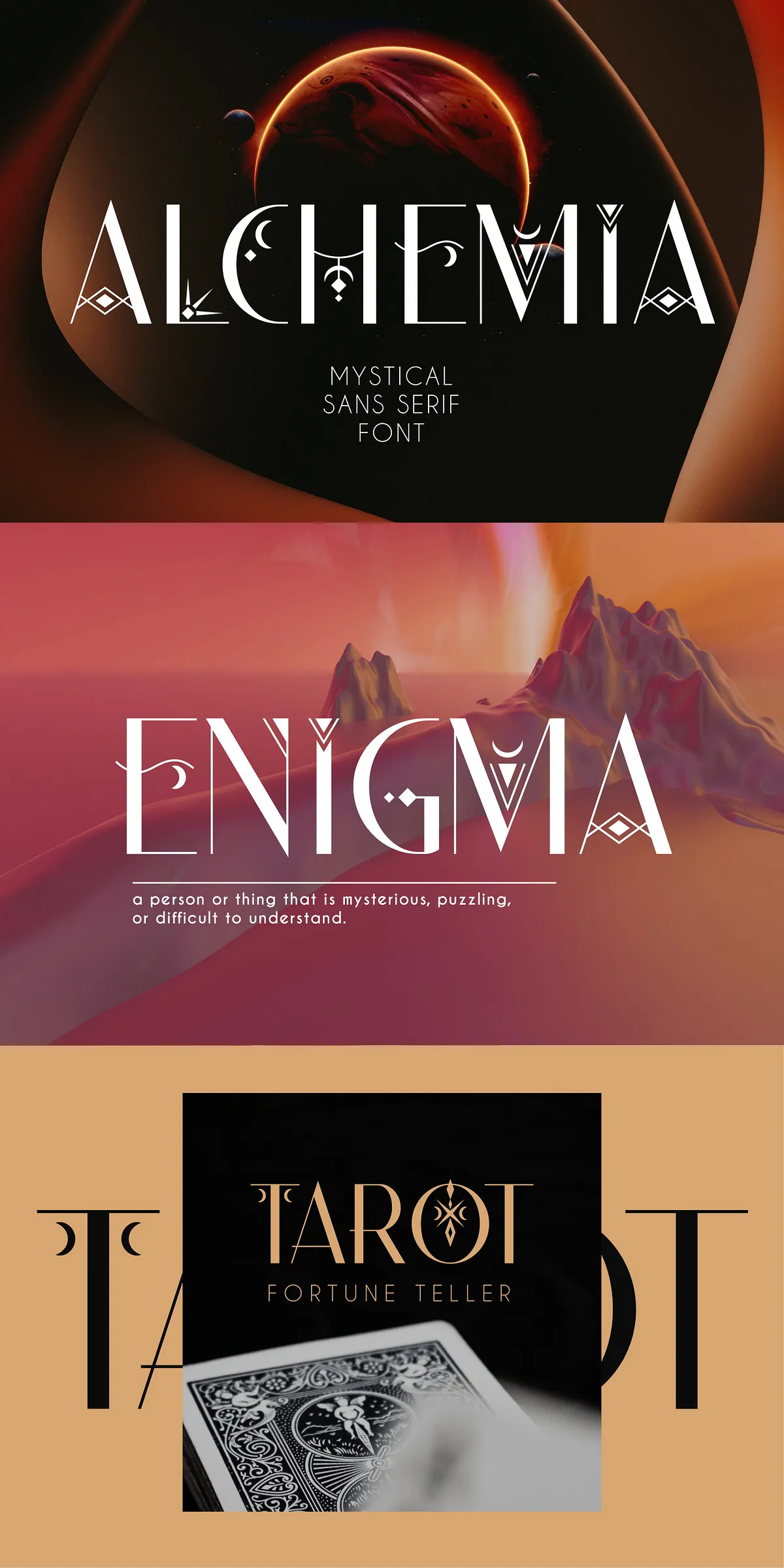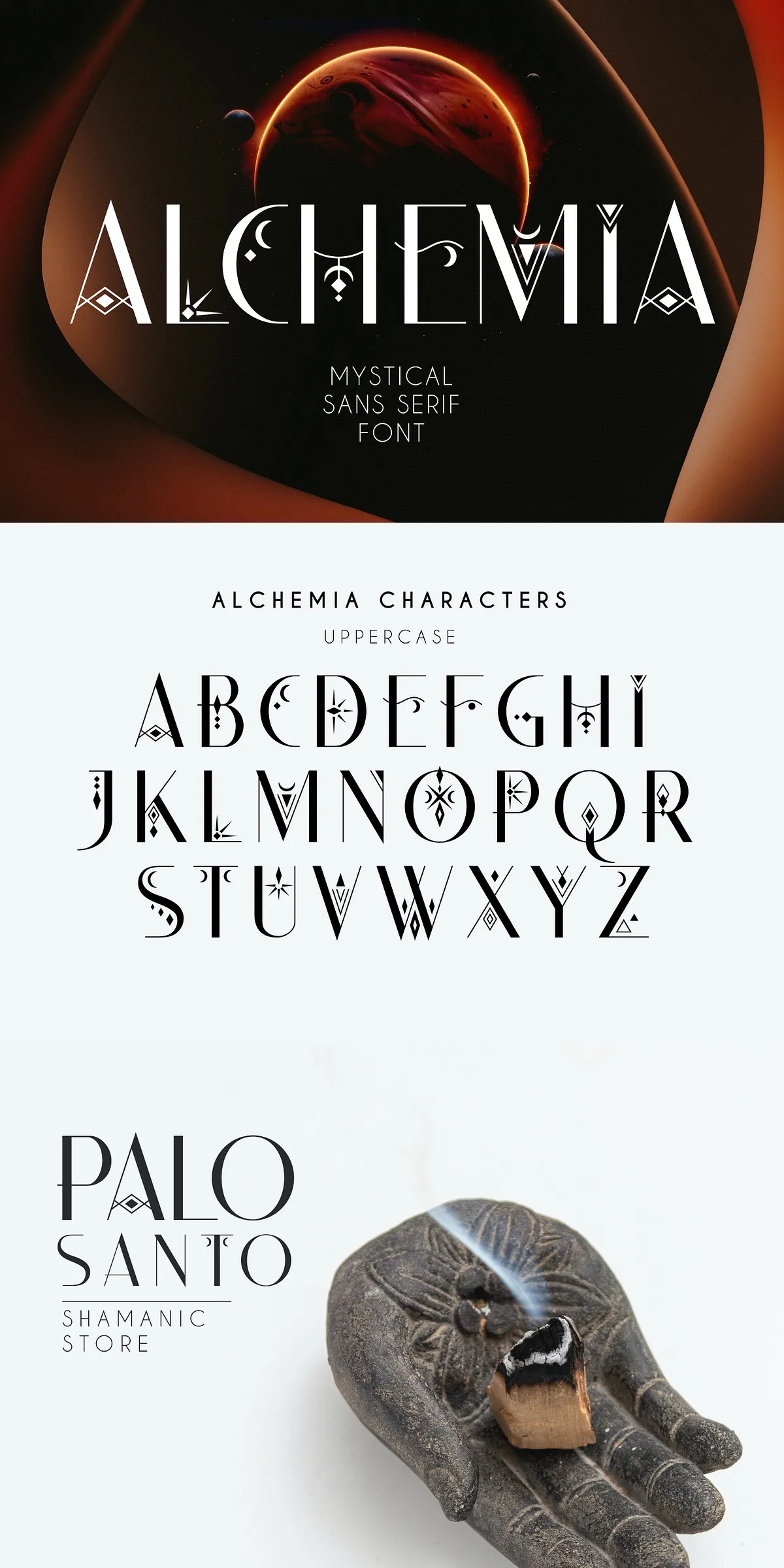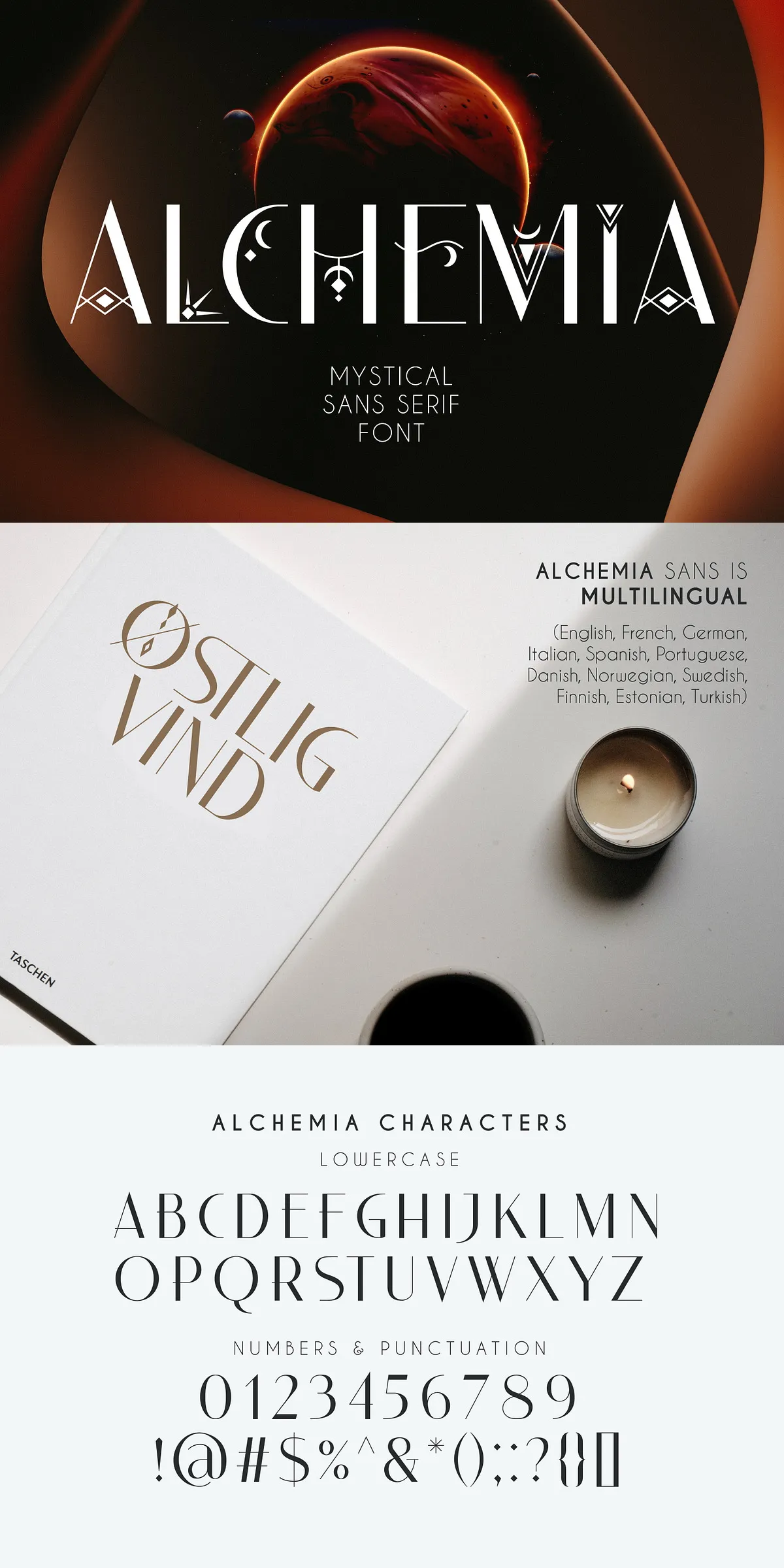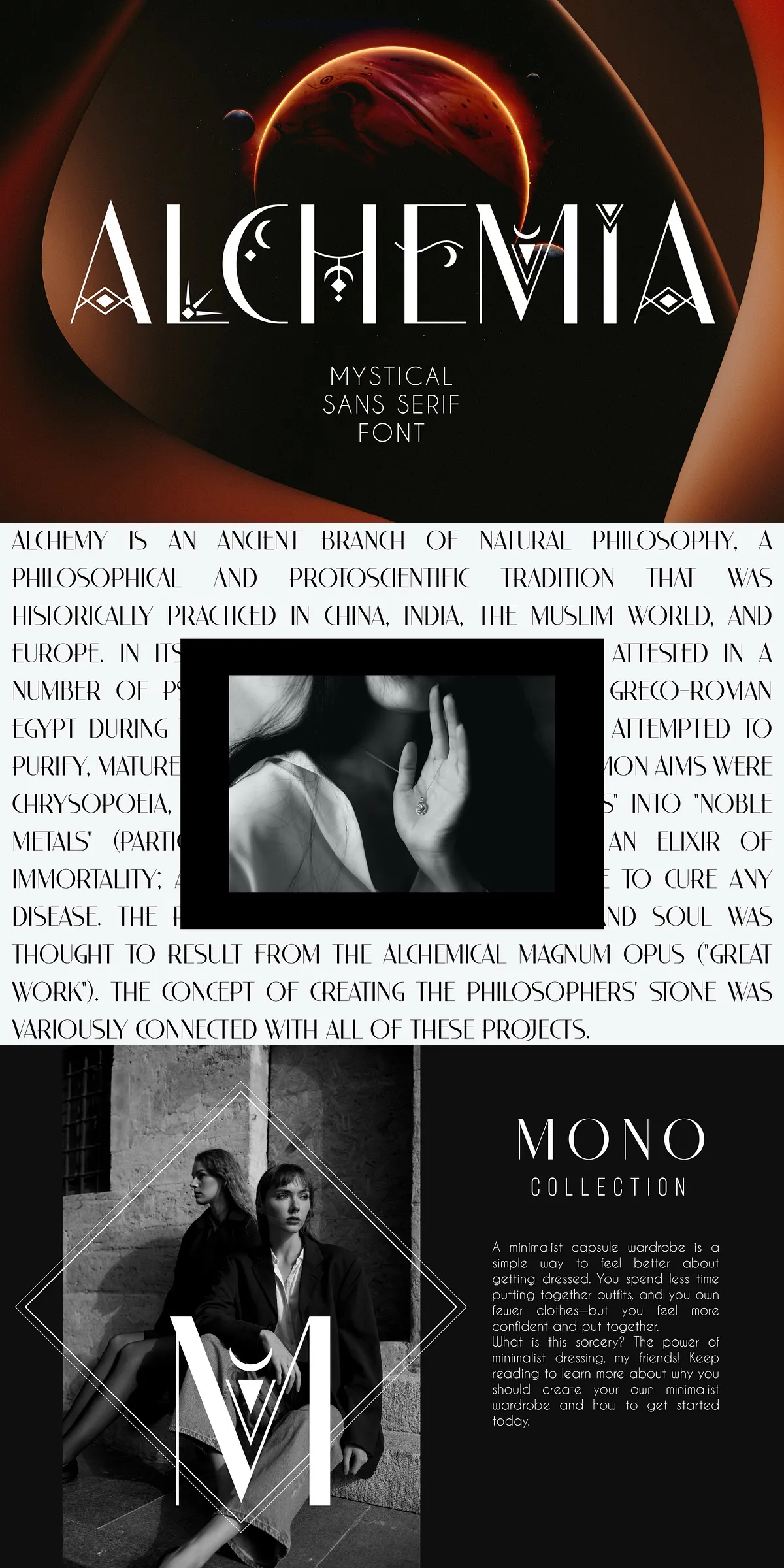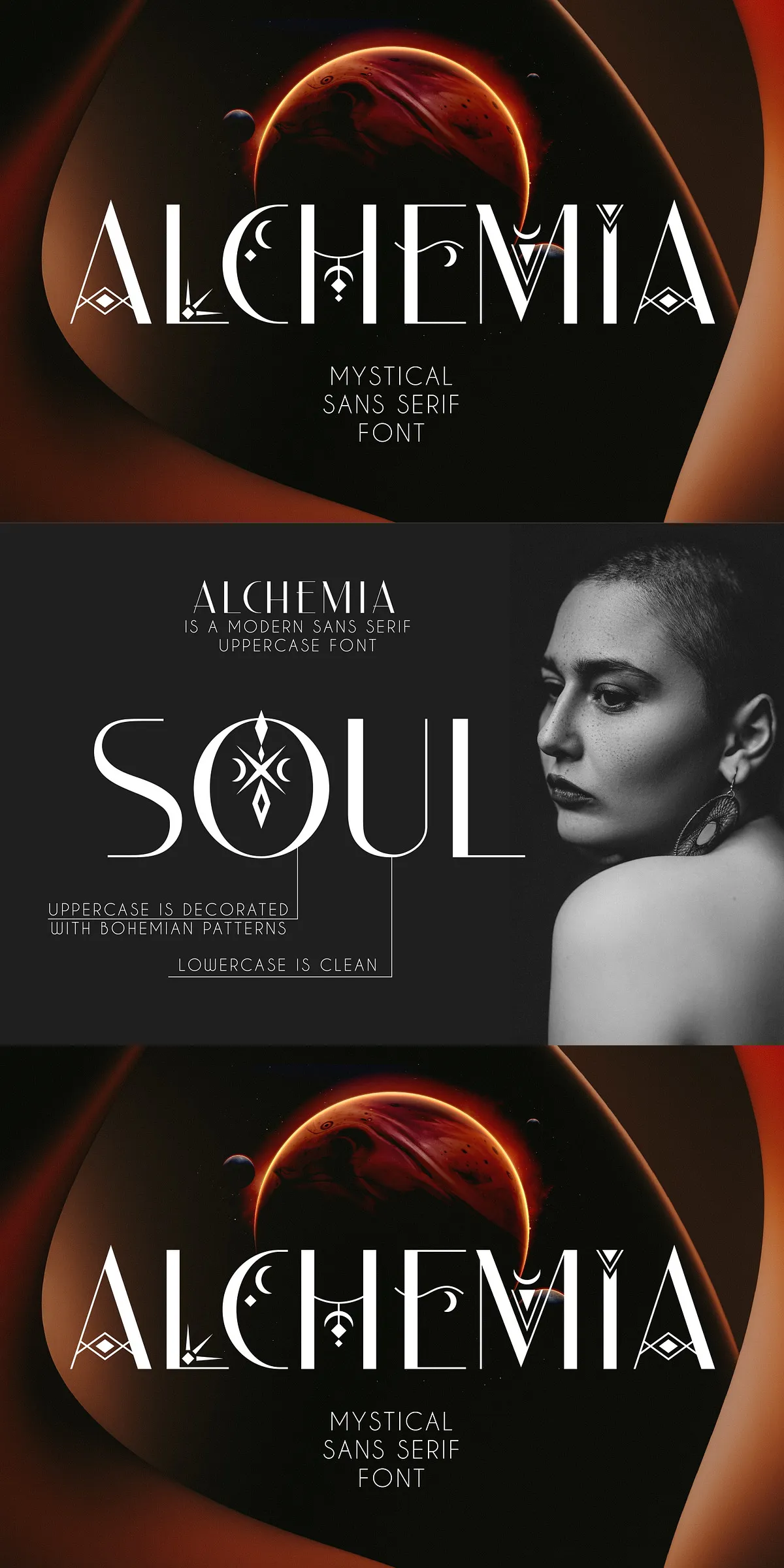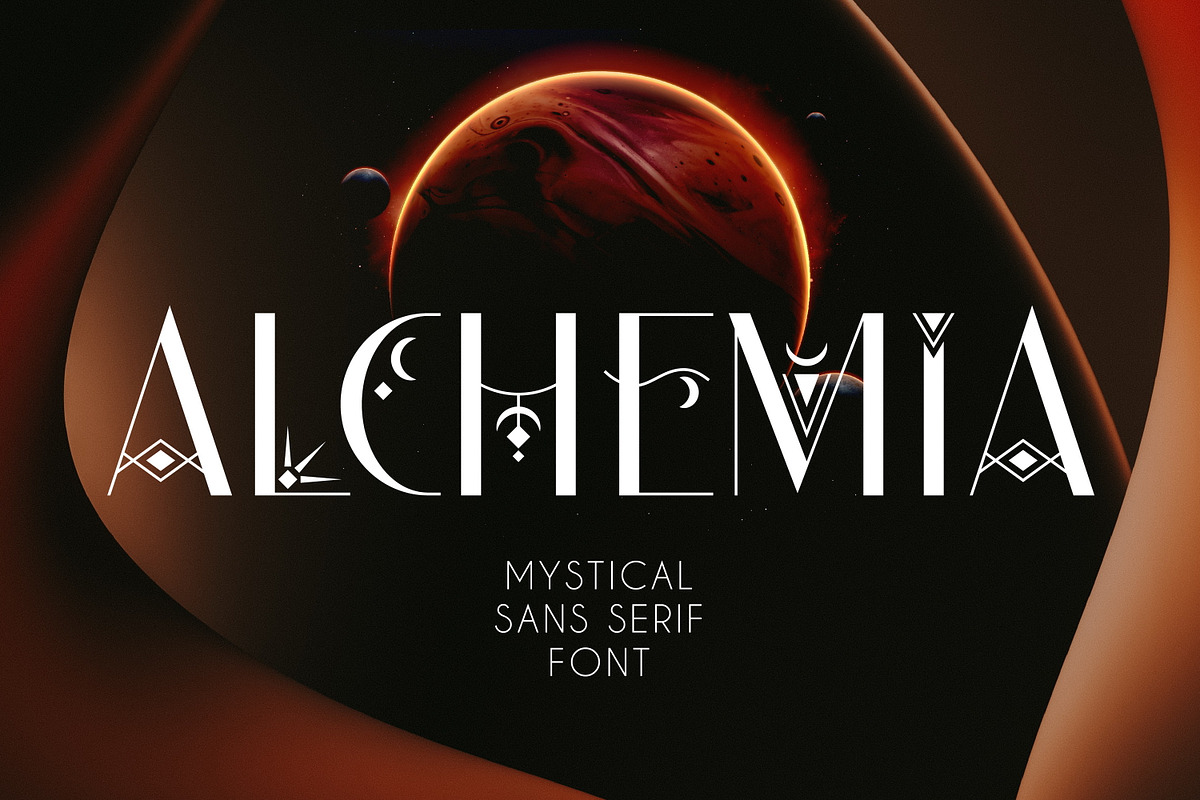
Step into a realm where typography meets mysticism. ALCHEMIA is not just a font — it’s an invitation to explore the unknown. Designed for creators who crave depth, character, and enchantment, ALCHEMIA fuses classic proportions with celestial motifs and bohemian-inspired decoration. This modern sans serif doesn’t merely convey text — it tells stories of stars, spells, and soulful expression.
Two Faces, One Vision: Elegant Lowercase Meets Ornate Uppercase
ALCHEMIA masterfully balances two distinct personalities in a single typeface:
- Lowercase Forms: Clean, flowing, and grounded in timeless modernity. The lowercase letters deliver clarity and sophistication, ideal for long-form content, journaling, and subtle mystical touches.
- Uppercase Forms: Bold, decorative, and intricately detailed. Each capital letter bursts with ornamental flair — think celestial patterns, astral symbols, and ethereal flourishes that elevate any headline to a work of art.
This duality makes ALCHEMIA uniquely versatile: use it to whisper secrets in lowercase, and shout them from the rooftops in ornate uppercase. Perfect for spellbooks, tarot decks, meditation guides, event invitations, or mystical brand identities.
Designed for the Visionary: Creative Applications That Defy Ordinary
- Astrology & Zodiac Branding: Create stunning visuals that mirror the power of the stars. ALCHEMIA makes planetary alignments feel tangible through its elegant, otherworldly design.
- Spirituality & Wellness Platforms: Elevate meditation apps, yoga studios, and mindfulness journals with a font that feels sacred and intentional.
- Witchcraft & Esoteric Design: Perfect for grimoires, incantation cards, rune collections, and ceremonial packaging — where every character carries meaning.
- Boho Fashion & Lifestyle Labels: Infuse your brand with dreamy, artistic depth. Ideal for labels, packaging, social media graphics, and lookbooks.
- Art & Illustration Projects: Use ALCHEMIA as a dynamic visual element in mixed-media art, digital illustrations, or album art where emotion and aesthetic are key.
Universal Language of the Mystics: Extensive Multilingual Support
ALCHEMIA isn’t bound by borders. It speaks across cultures and continents with complete linguistic coverage for:
- English
- French
- German
- Italian
- Spanish
- Portuguese
- Danish
- Norwegian
- Swedish
- Finnish
- Estonian
- Turkish
Typography That Transcends the Page
Whether you’re designing a full tarot deck, an astrological calendar, or a mystical fashion collection, ALCHEMIA empowers your vision. Its balance of modernity and mysticism creates a timeless feel — elegant without being sterile, magical without being chaotic.
Make Every Letter Mean Something
Don’t just write — weave. Don’t just design — summon. ALCHEMIA is more than a tool. It’s a creative catalyst for those who believe in the power of symbols, stories, and soul-driven design.
Choose a font that doesn’t just look good — it feels real. Choose ALCHEMIA. Let your work shimmer with intention. Let it resonate with the unseen. Let it carry the weight of wonder.